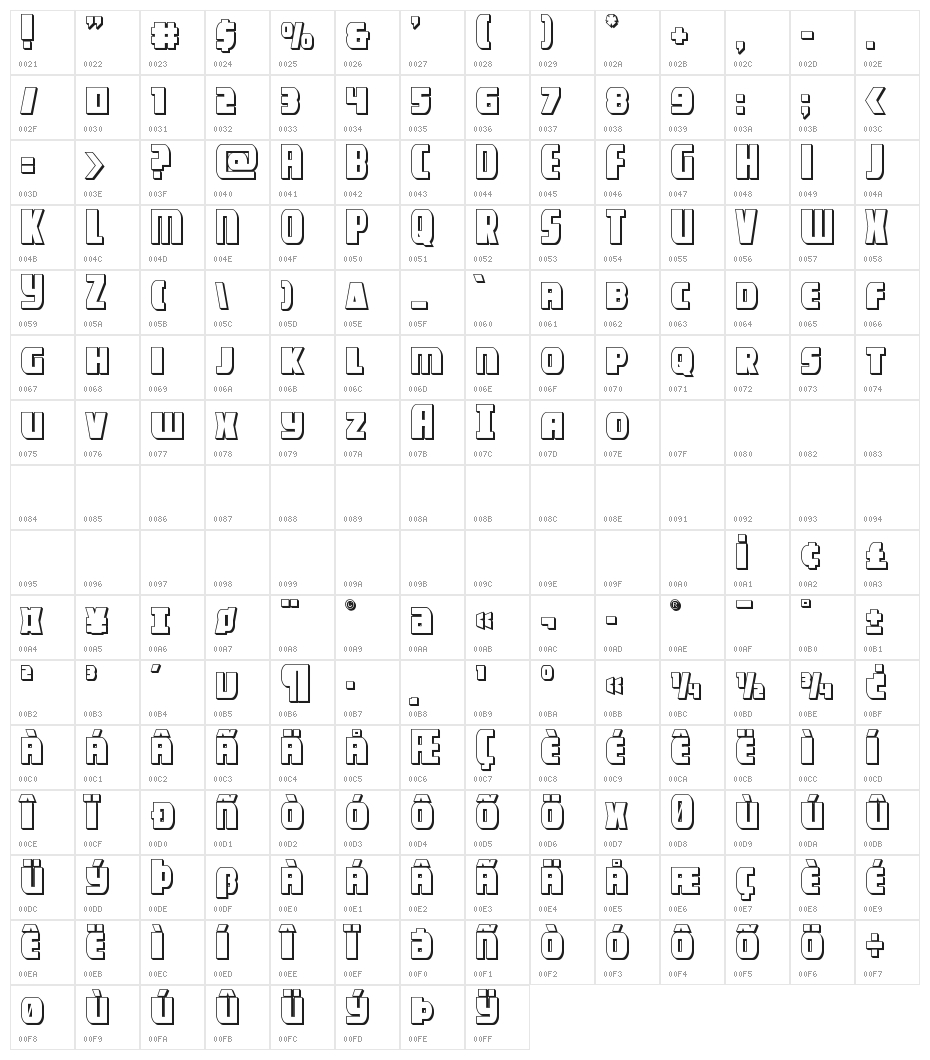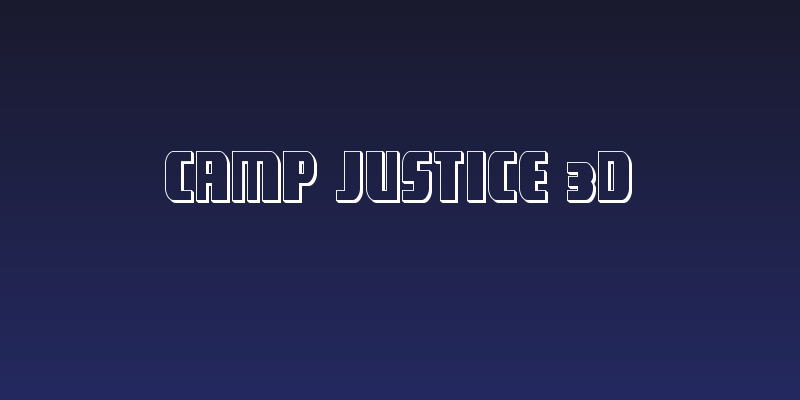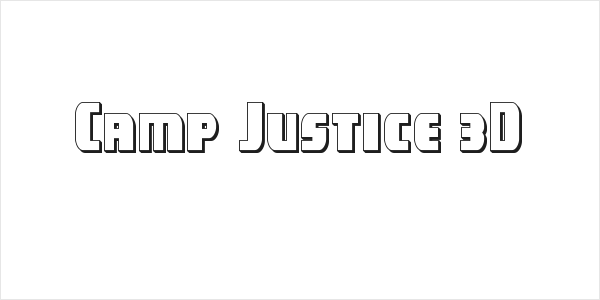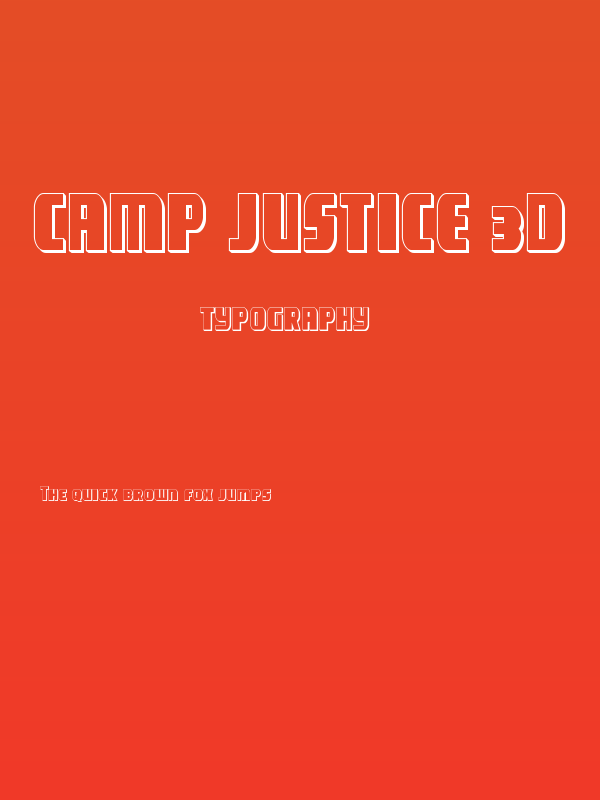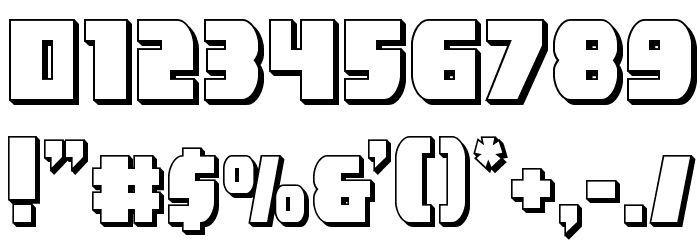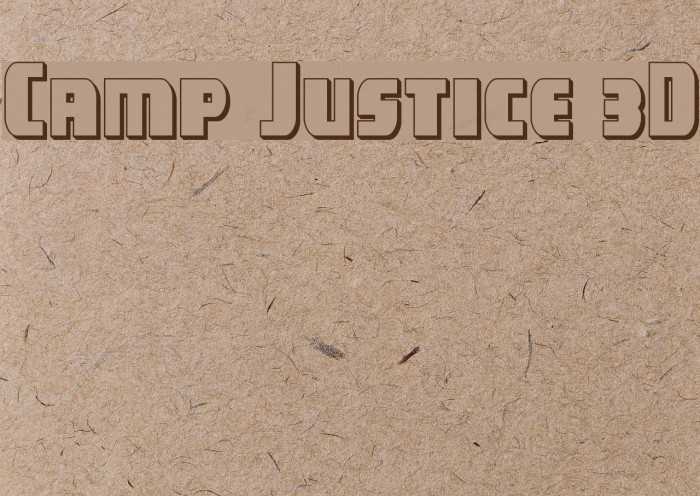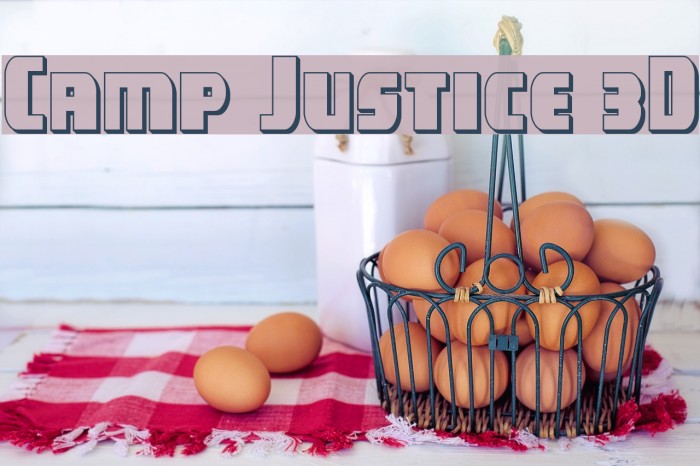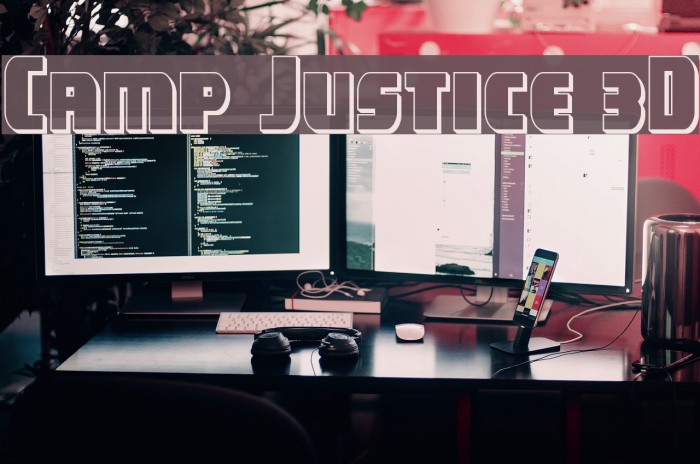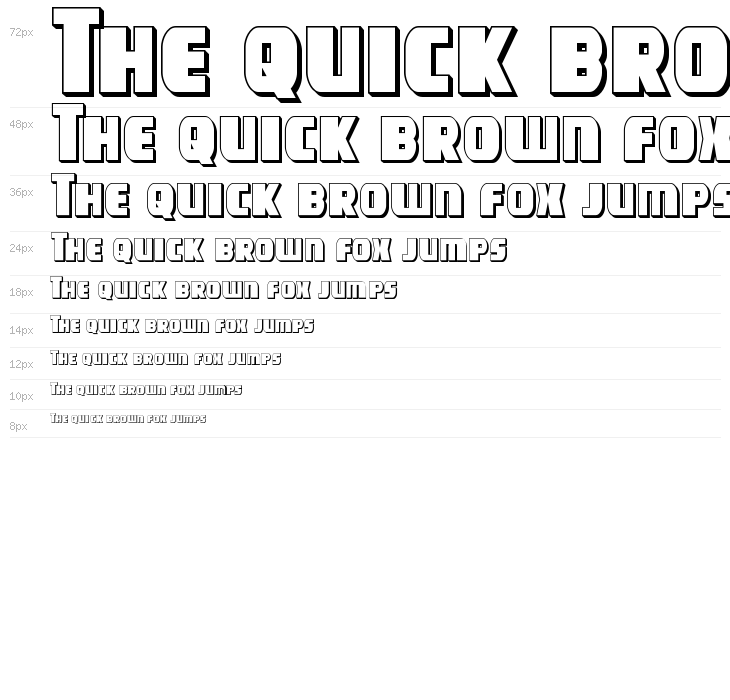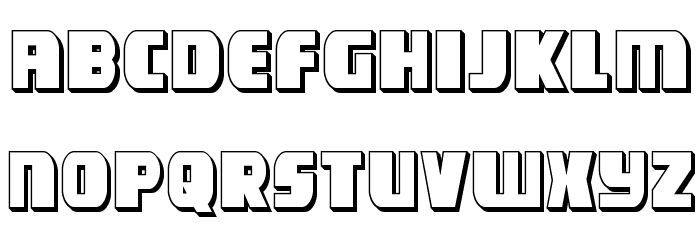
Camp Justice 3D Font
This font features a bold, three-dimensional design with a strong, impactful presence. The characters are outlined with a shadow effect, giving them a distinct 3D appearance. The uppercase letters are uniform in height, with a geometric structure that emphasizes straight lines and sharp angles. The numbers and special characters maintain the same bold style, ensuring consistency across all elements. This font is ideal for creating eye-catching headlines or logos that require a modern and dynamic look.
| Proposed Projects | Ideal for posters, logos, video game titles, and any project requiring a bold, standout typeface. |